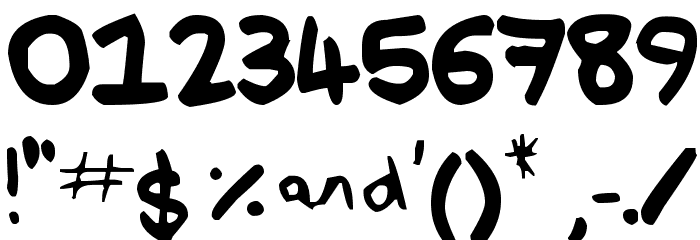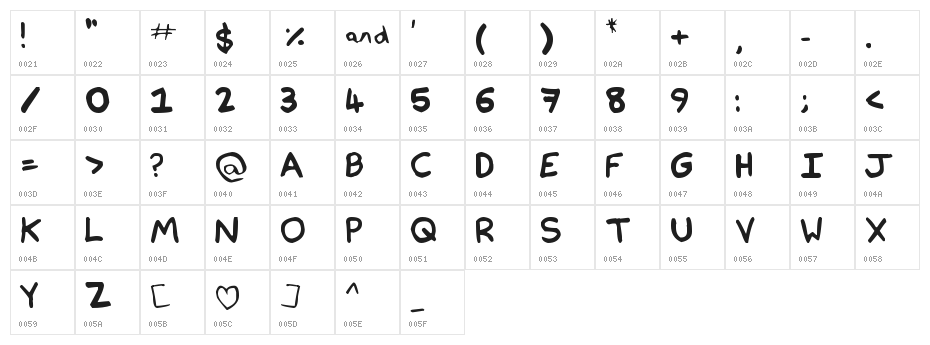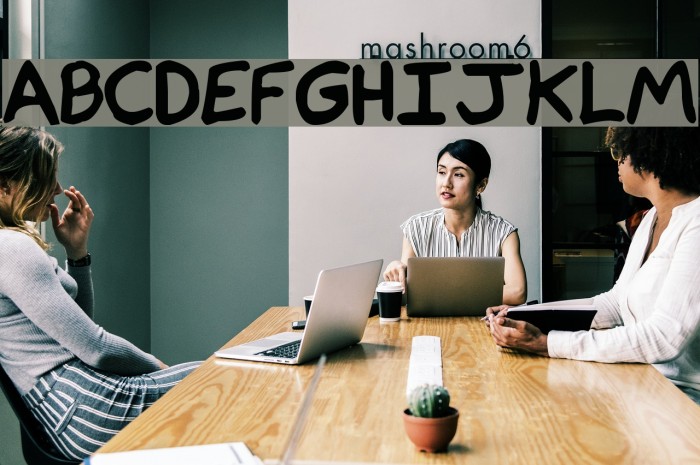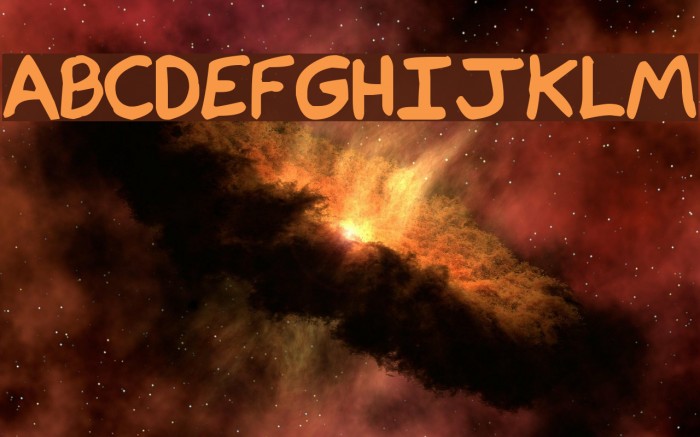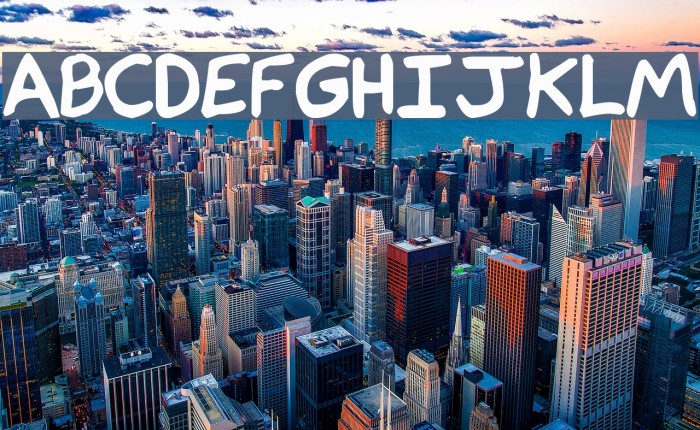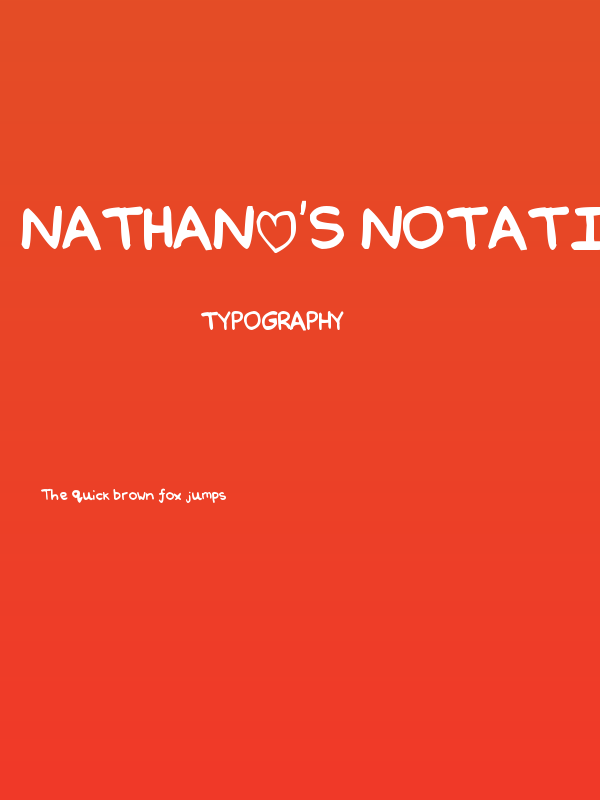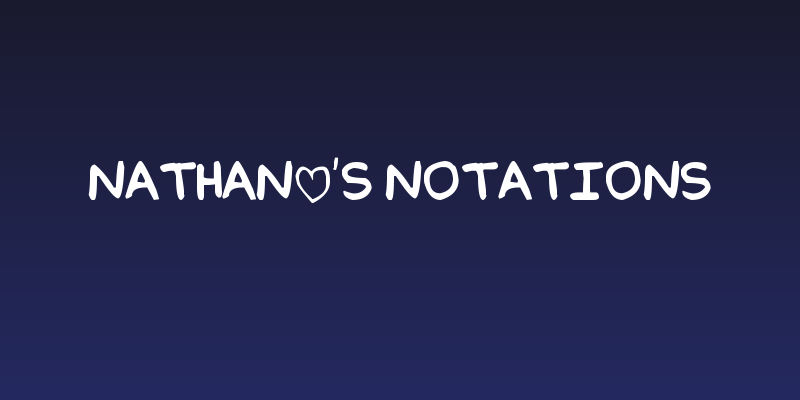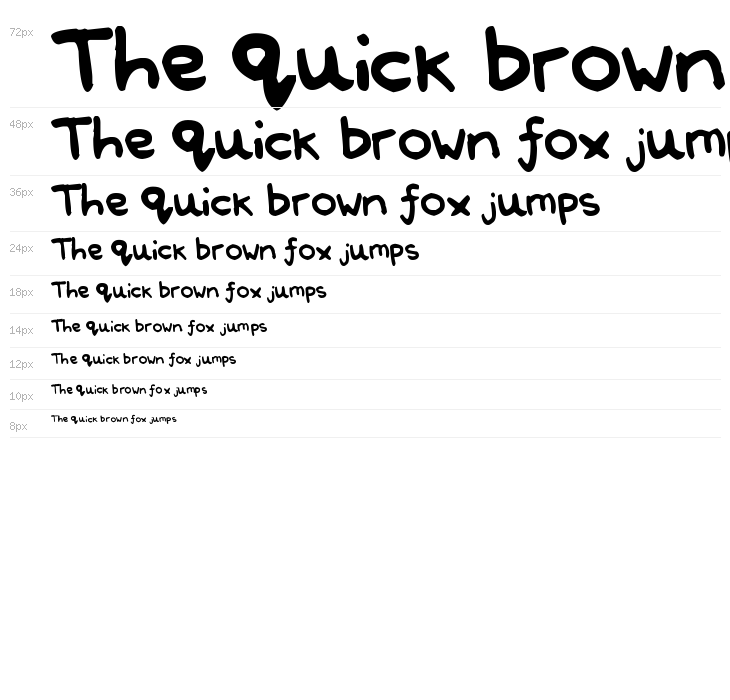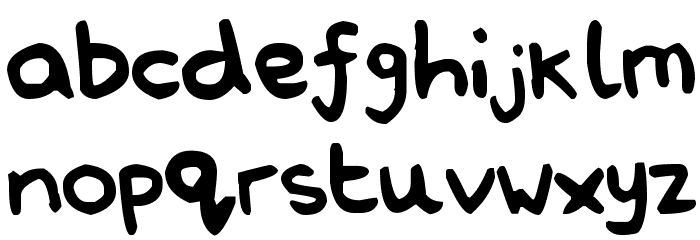
Nathan's Notations Font
Nathan's Notations Description
This playful and informal font exudes a handwritten charm, characterized by its rounded and slightly irregular letterforms. The strokes are bold and consistent, giving it a friendly and approachable appearance. The uppercase and lowercase letters maintain a cohesive style, with the lowercase letters exhibiting a slight slant that adds to the casual feel. The numbers and special characters are equally bold and maintain the same playful aesthetic. This font is perfect for projects that require a personal touch or a fun, informal vibe.